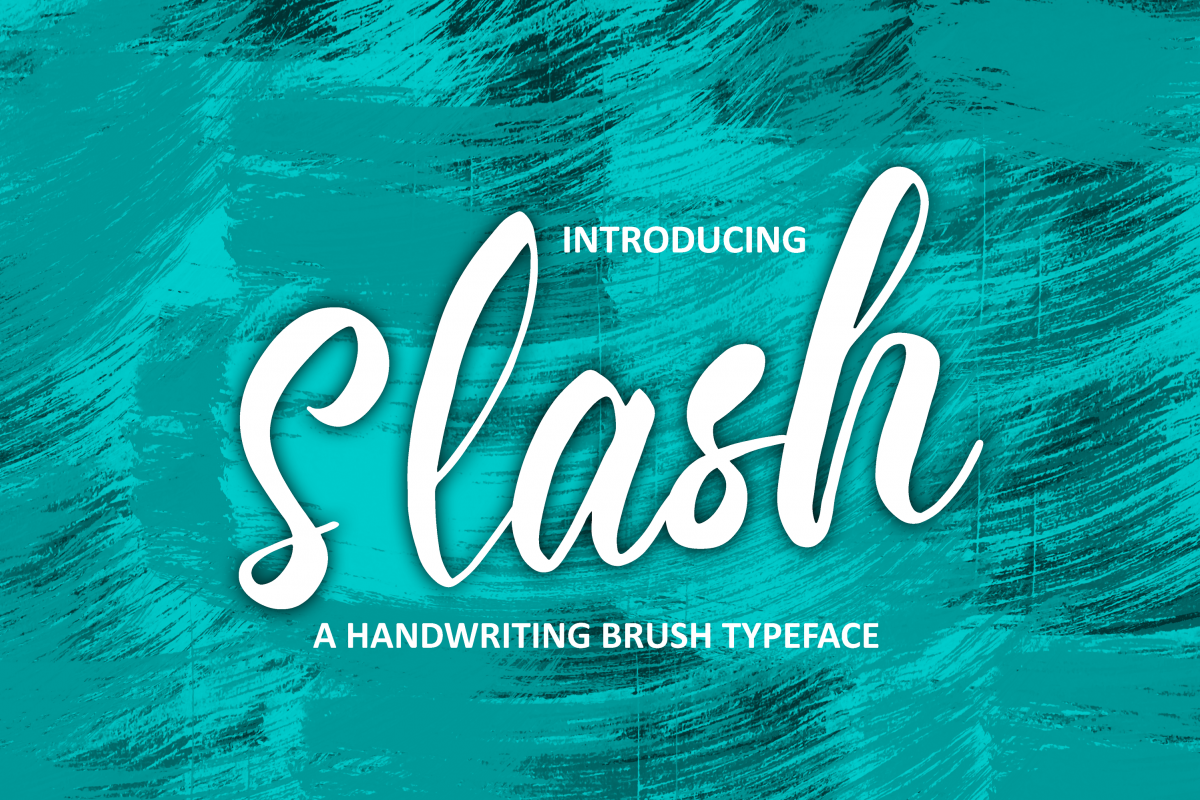
Slash
Slash Regular
Slash Bold
Slash Font is a fun bold handwriting font, fresh & modern style. Slash Font suitable for nameplate, logo, branding, greeting card, poster, book cover, and any design that you create.